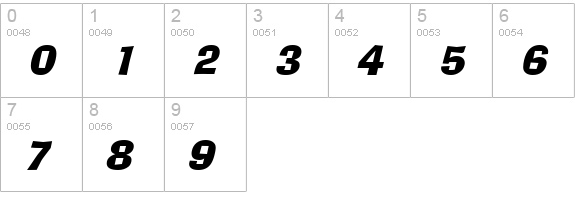
Alor Narrow BoldItalic Font Details
Alor Narrow BoldItalic is a distinctive, condensed-width variant in the Alor typeface family \xE2\x80\x94 well suited to design and typography projects.
Alor Narrow BoldItalic font is the epitome of modern sophistication and sleek elegance. Its bold yet delicate strokes exude confidence and style, making it perfect for a wide range of design projects. The italicized slant adds a touch of flair and dynamism, setting it apart from other fonts. Best of all, this stunning font is available for free download at FontsMarket.com. With its eye-catching design and versatility, Alor Narrow BoldItalic is sure to elevate any project to the next level. Whether you're creating a striking poster, designing a sleek website, or crafting a professional presentation, this font is the perfect choice to make a lasting impression.